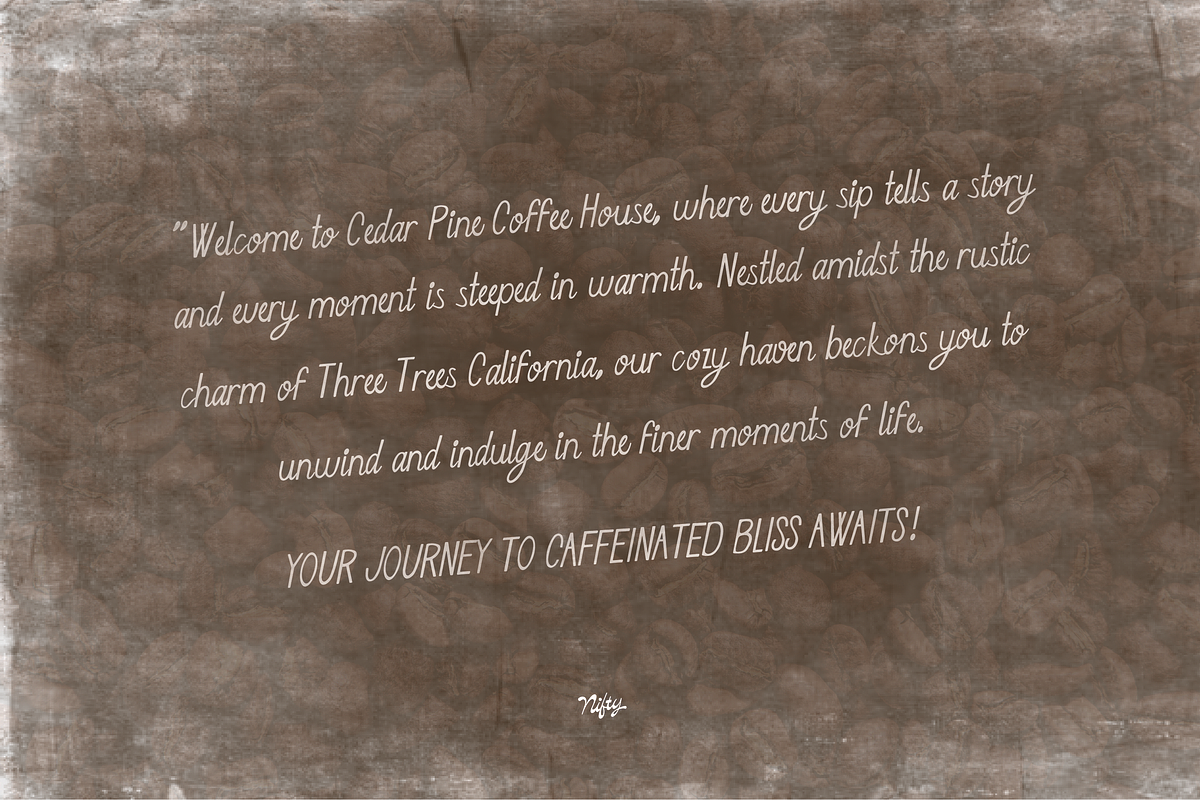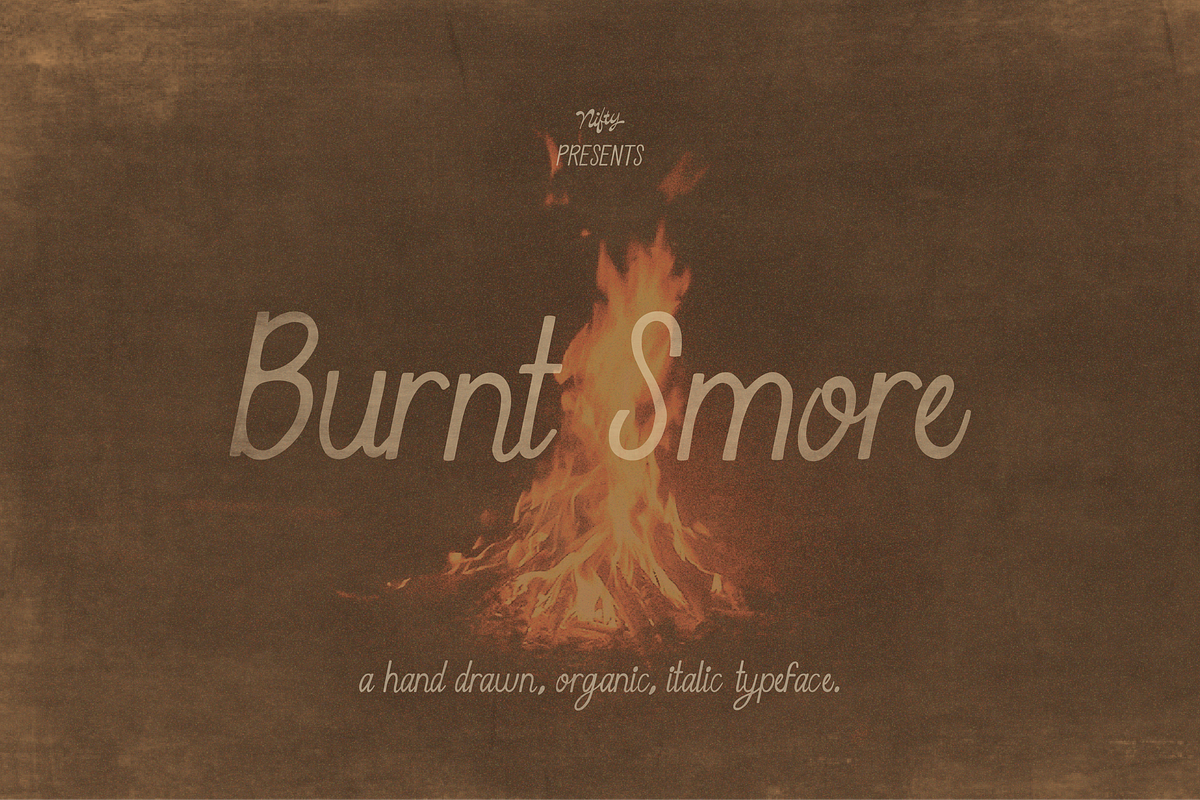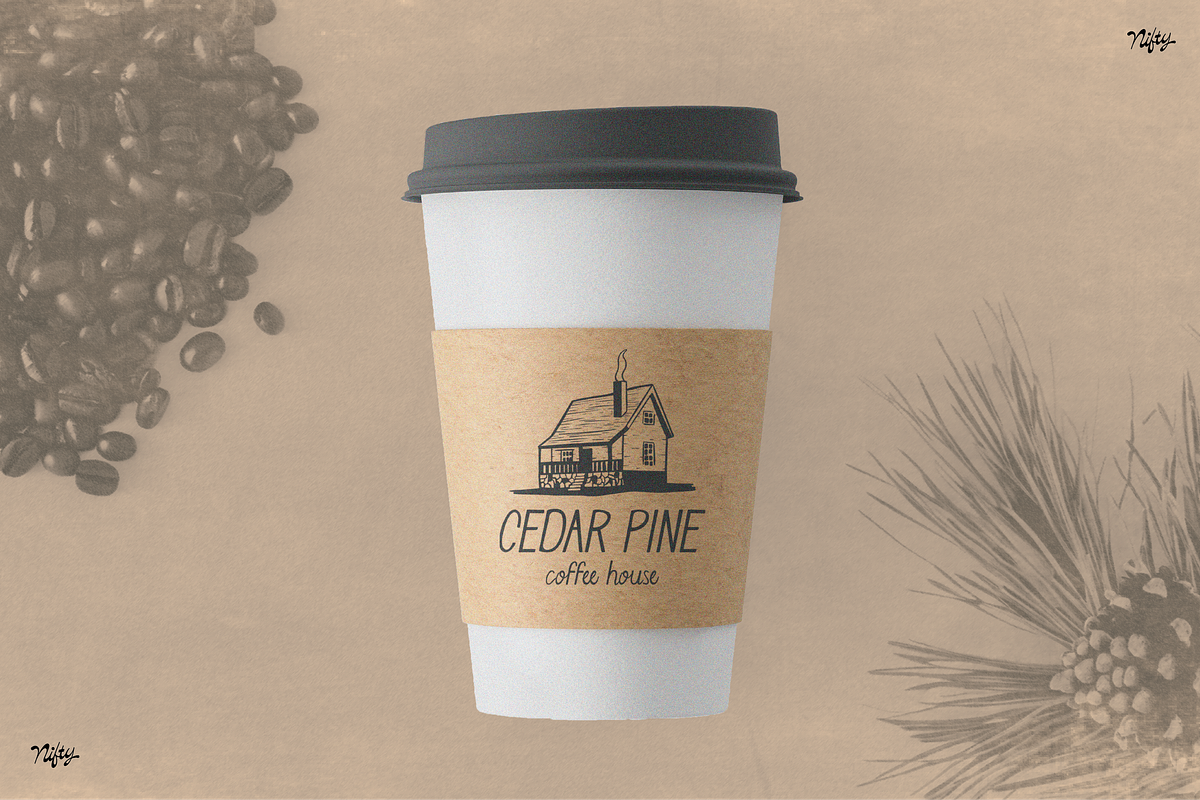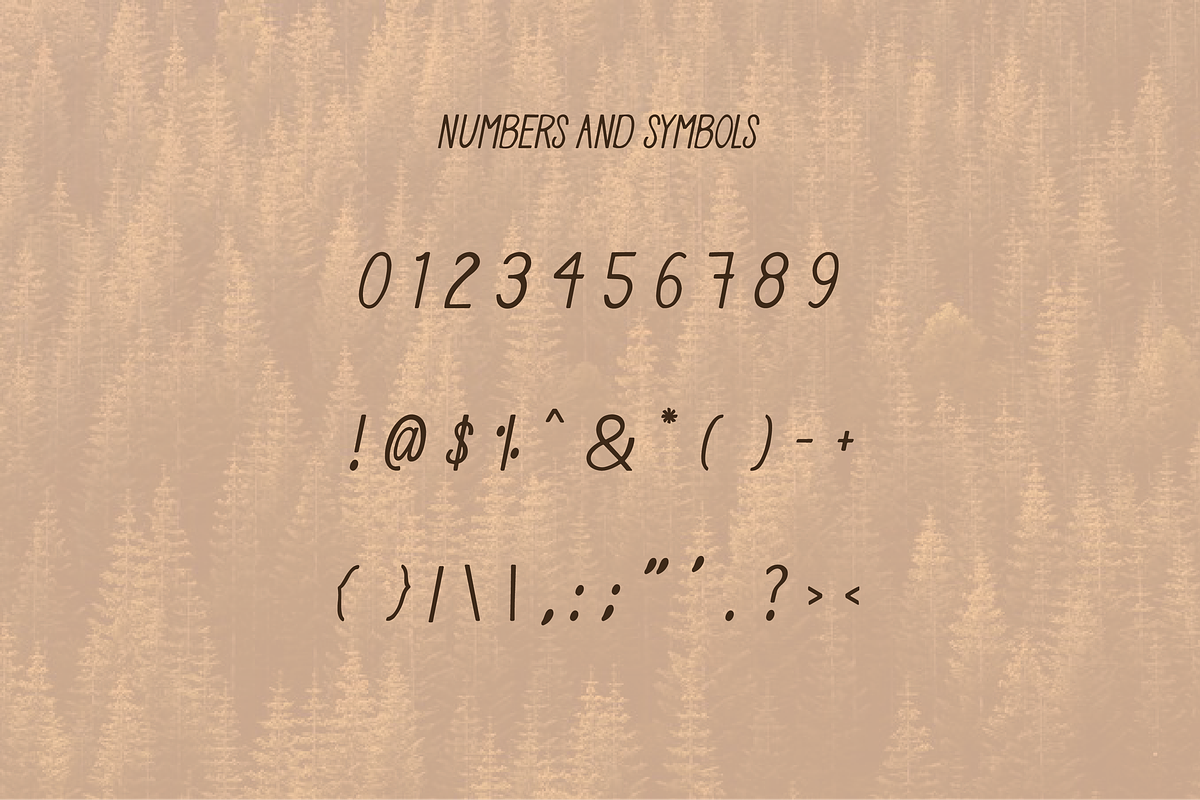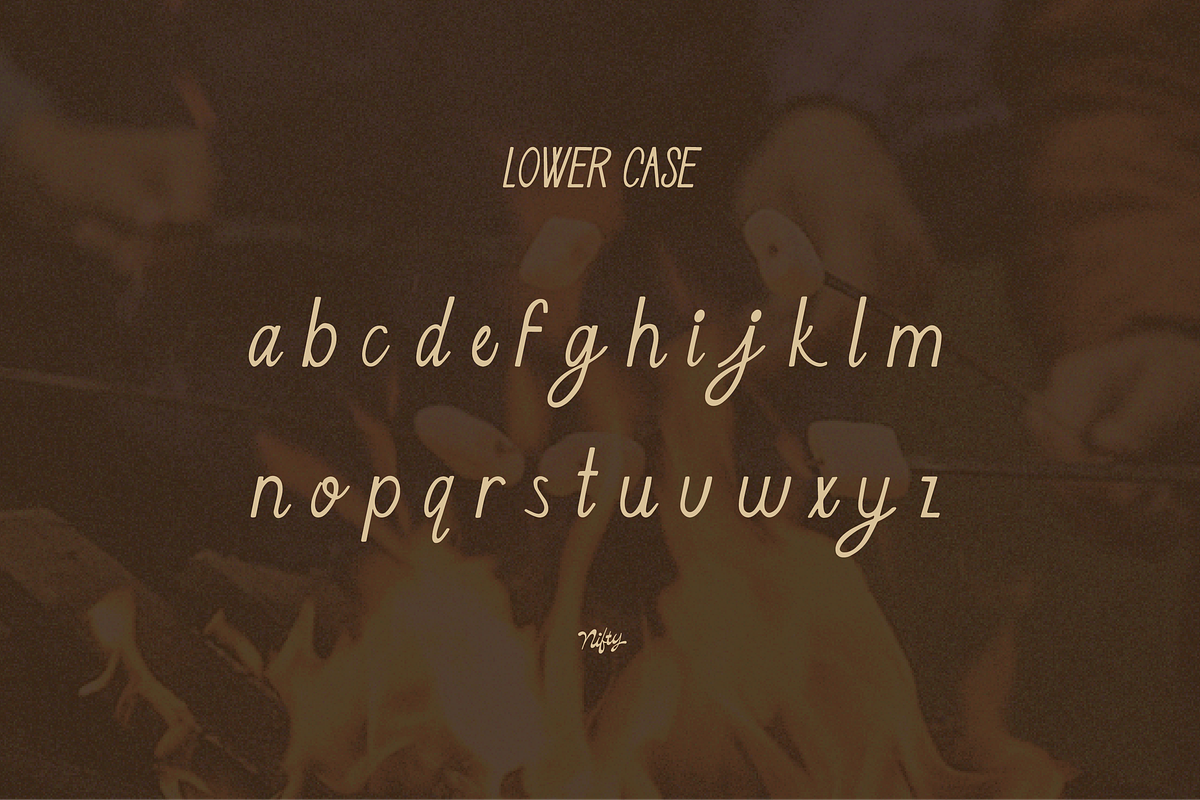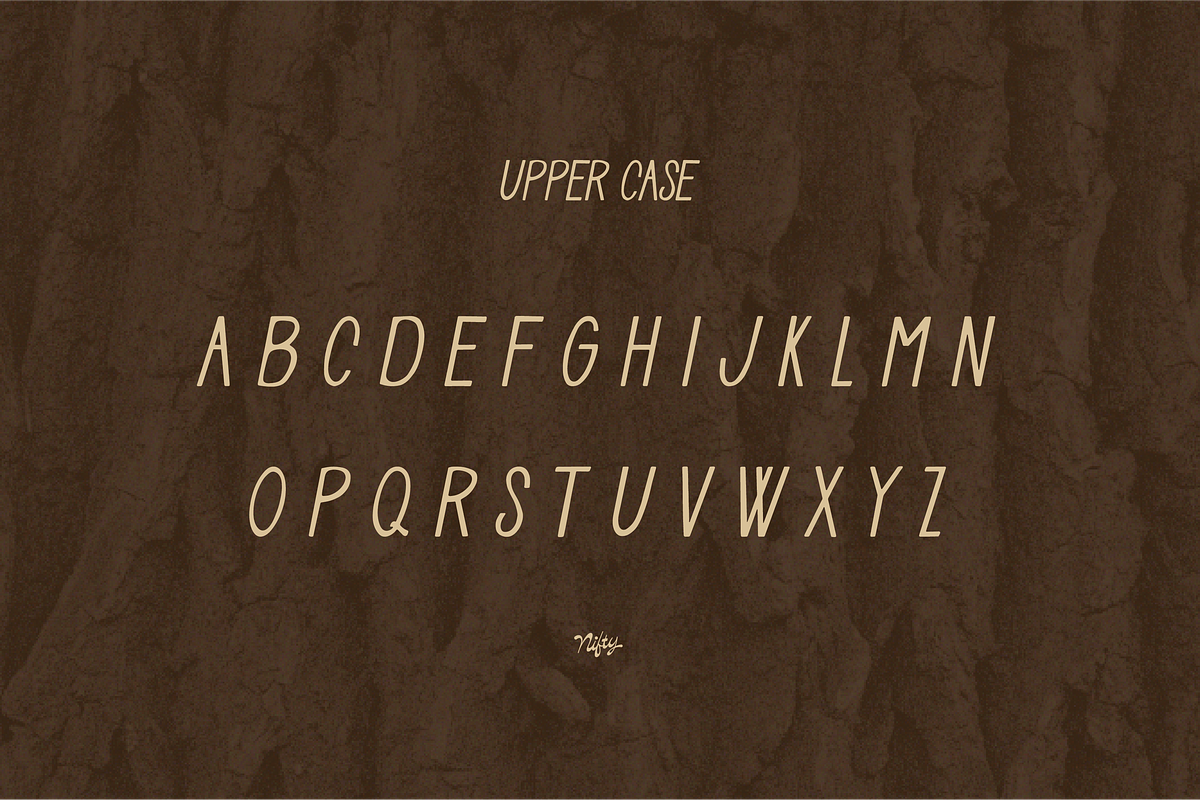
Burnt Smore by Nifty Branding
Burnt Smore is a hand drawn partially script typeface that gives a cozy vibe. Perfect for apothecaries or hand made businesses that want to bring warmth to there brand. Use Burnt Smore for logos, paragraphs and more to give your projects that homey touch.